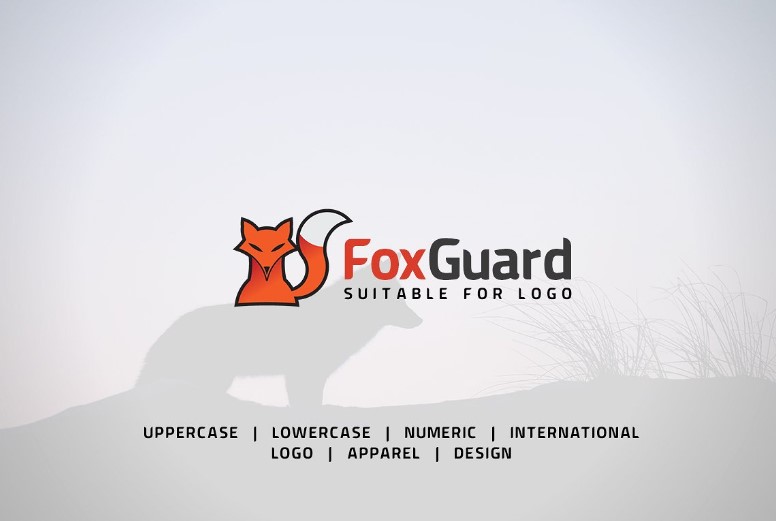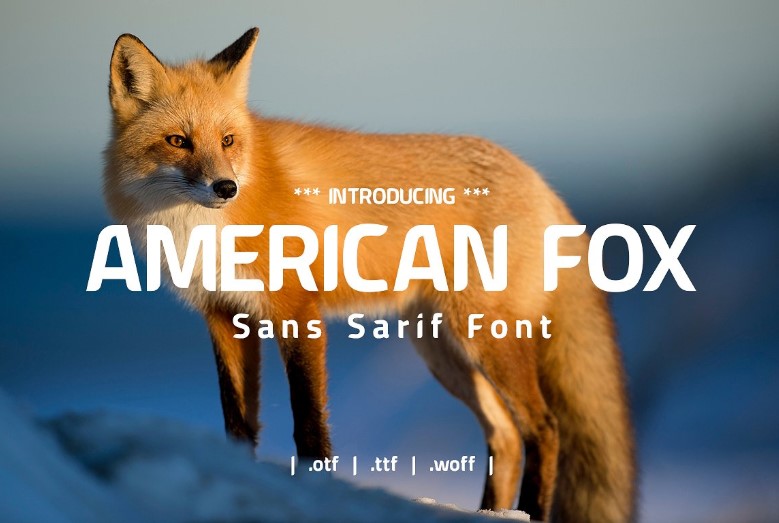
American Fox Font
American Fox Font is the type of that typeface that is highly utilized in logo designing. This typeface is quite similar to the fox racing font and also listed in google fonts. It’s miles to be had in 8 weights providing loads of glyphs and italic variations as properly. The font you use is a crucial component of equal time as designing an identity.
The present-day weights live actual to the style and style of vogue font with the acquainted smooth strains, elegant shapes, a mixture of technical straightforwardness and herbal warmth. American Fox Font Free Its topographies immoderate capital letters composed out via a mixture of small and top-notch lowercase fonts. You may moreover apply it to your net net page or logo format. Categorically superb suitable to expose and opinions of significance, this could be an exceptional accumulation in your font series.